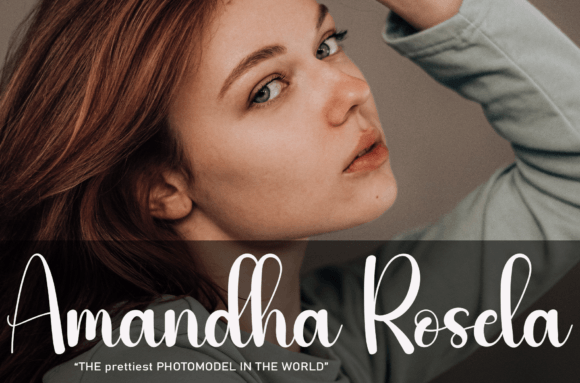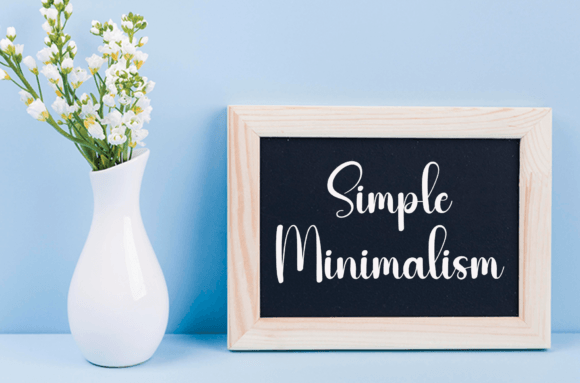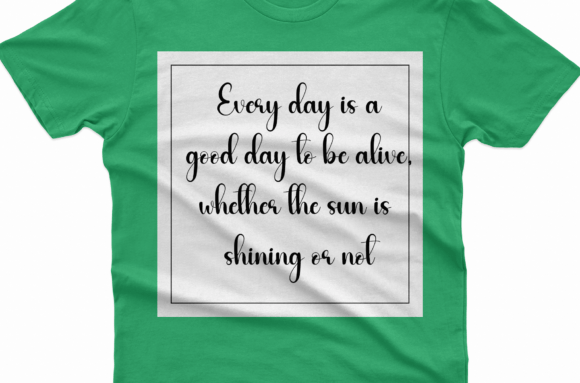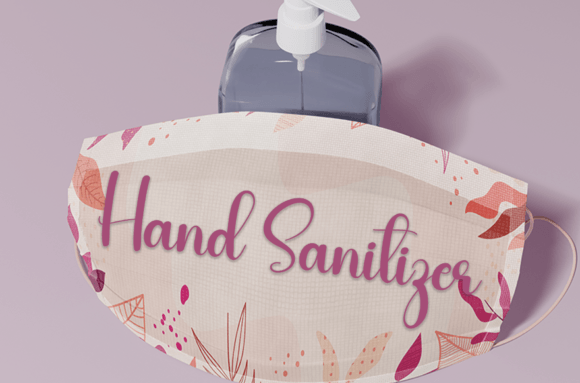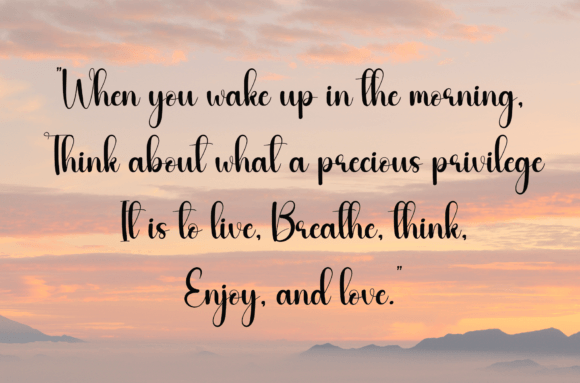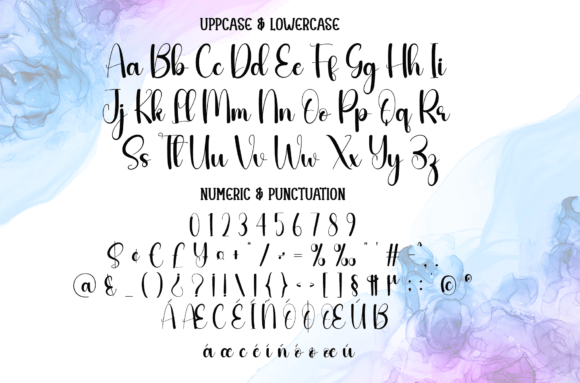
Introducing Catty Font: The Sweet and Friendly Handwritten Font for Your Creative Projects
Are you looking for a font that can add a touch of warmth and personality to your designs? Look no further than Catty Font, a sweet and friendly handwritten font that’s perfect for a variety of creative projects. In this article, we’ll take a closer look at Catty Font, its features, and how you can use it to elevate your designs.
What is Catty Font?
Catty Font is a beautiful, handwritten font that’s designed to bring a touch of freshness and neatness to your designs. With its sweet and friendly vibe, this font is ideal for writing wedding invitations, cards, or any other design that might need a fun touch. Whether you’re a designer, crafter, or DIY enthusiast, Catty Font is a great addition to your font collection.
Key Features of Catty Font
So, what makes Catty Font so special? Here are some of its key features:
- Handwritten style: Catty Font has a beautiful, handwritten style that’s perfect for adding a personal touch to your designs.
- Sweet and friendly vibe: This font has a warm and inviting vibe that’s sure to make your designs stand out.
- Fresh and neat: Catty Font is designed to be fresh and neat, making it perfect for a variety of design projects.
- Easy to read: Despite its handwritten style, Catty Font is easy to read, making it perfect for body text and headings.
Uses for Catty Font
So, what can you use Catty Font for? The possibilities are endless! Here are some ideas to get you started:
- Wedding invitations: Catty Font is perfect for writing beautiful, personalized wedding invitations that will make your guests feel special.
- Cards and stationery: Add a touch of personality to your cards and stationery with Catty Font.
- DIY projects: Whether you’re making signs, banners, or other DIY projects, Catty Font is a great choice.
- Digital designs: Catty Font can also be used for digital designs, such as social media graphics, blog posts, and more.
Tips for Using Catty Font
Here are some tips for using Catty Font in your designs:
- Pair it with other fonts: Catty Font looks great when paired with other fonts, such as sans-serif fonts or script fonts.
- Use it for headings and body text: Catty Font is easy to read, making it perfect for both headings and body text.
- Experiment with colors: Catty Font looks great in a variety of colors, so don’t be afraid to experiment and find the perfect color for your design.
In conclusion, Catty Font is a sweet and friendly handwritten font that’s perfect for a variety of creative projects. With its fresh and neat style, this font is ideal for writing wedding invitations, cards, or any other design that might need a fun touch. Whether you’re a designer, crafter, or DIY enthusiast, Catty Font is a great addition to your font collection. So why not give it a try and see how it can elevate your designs?